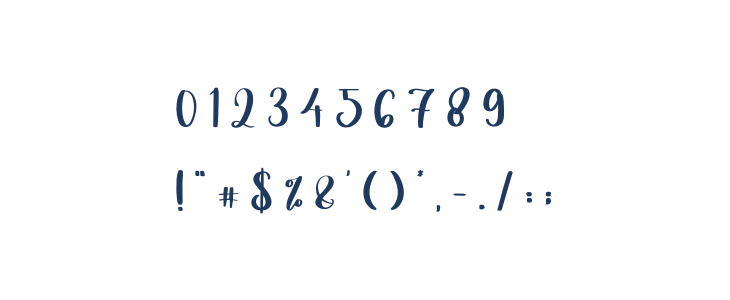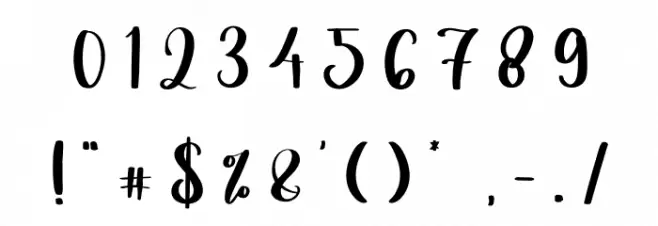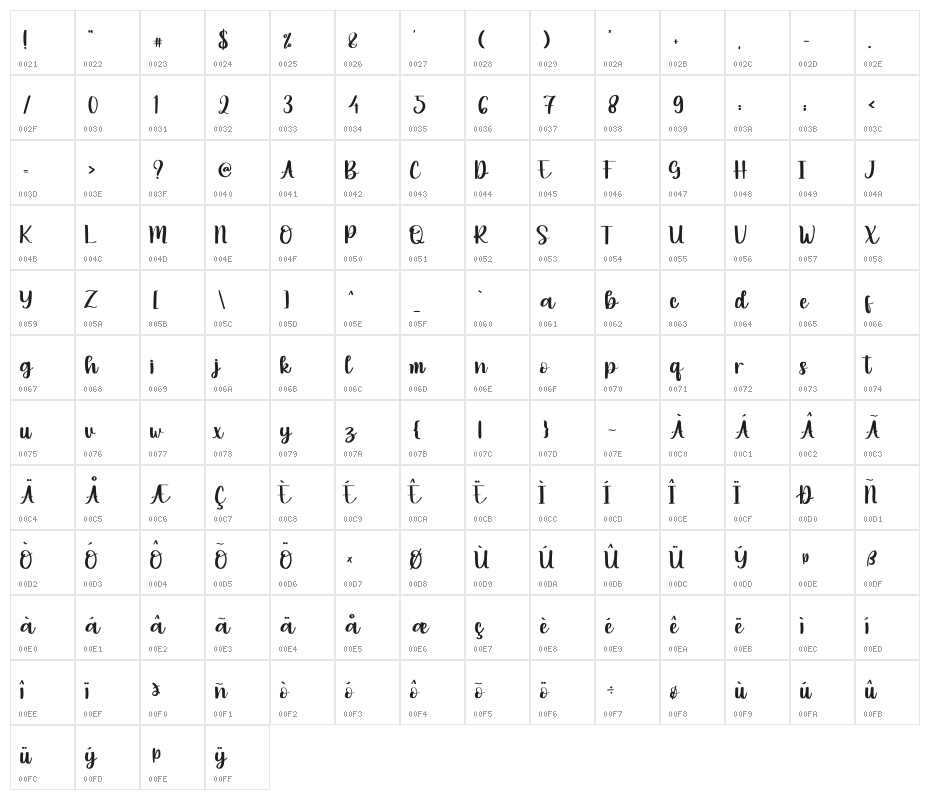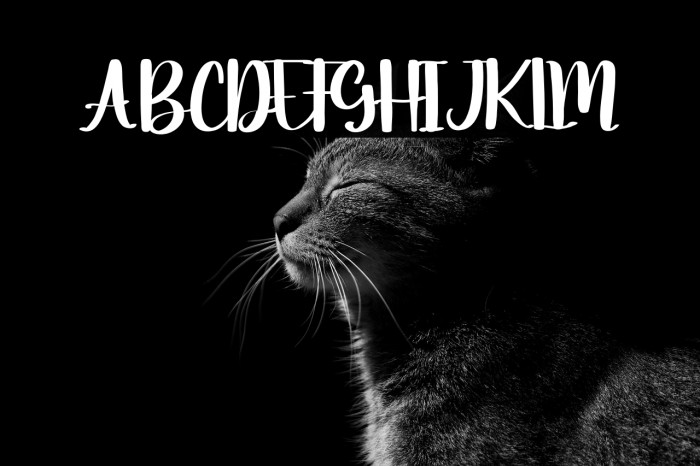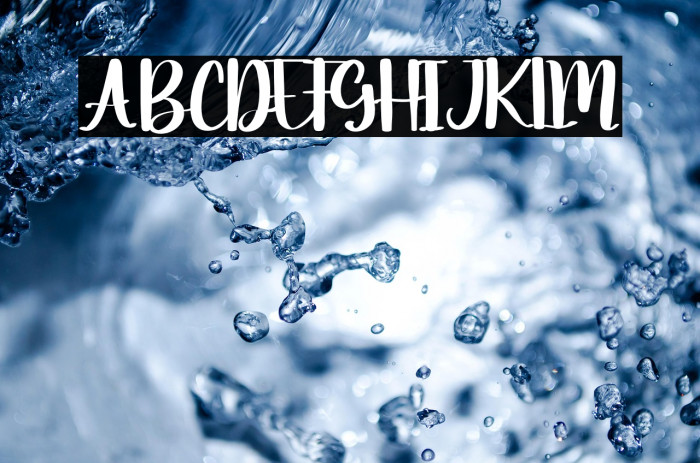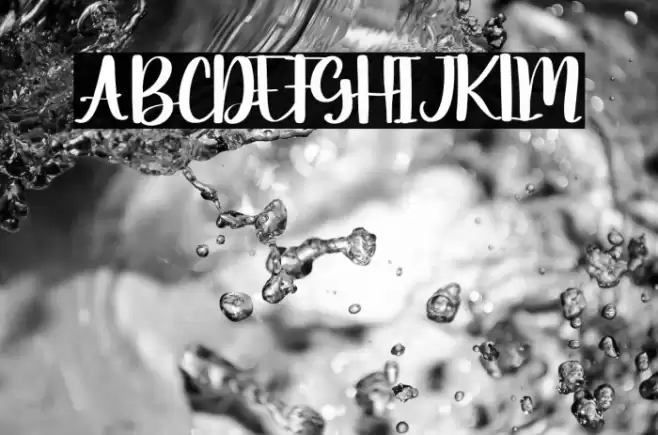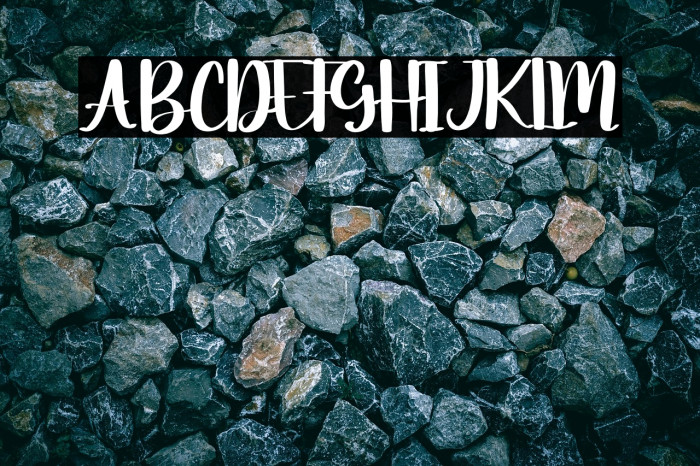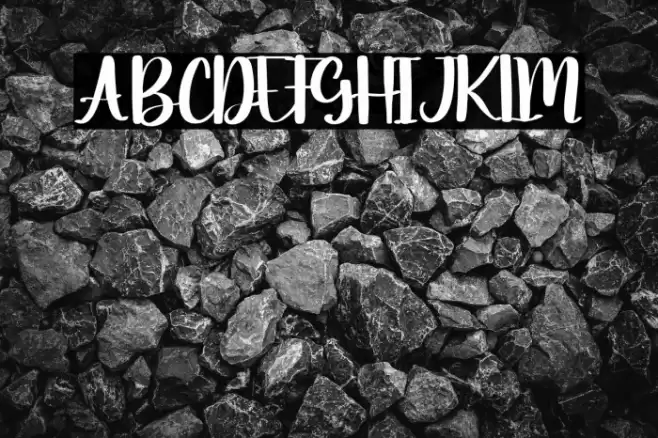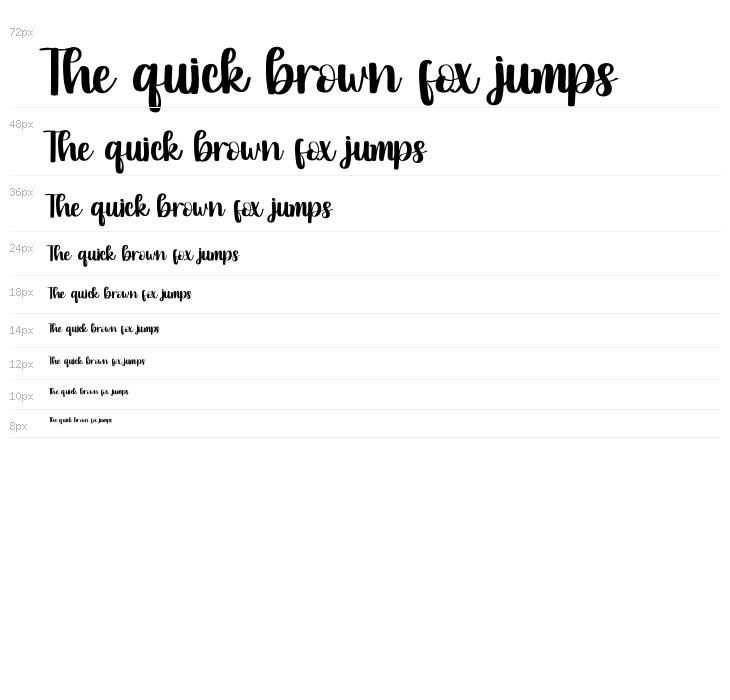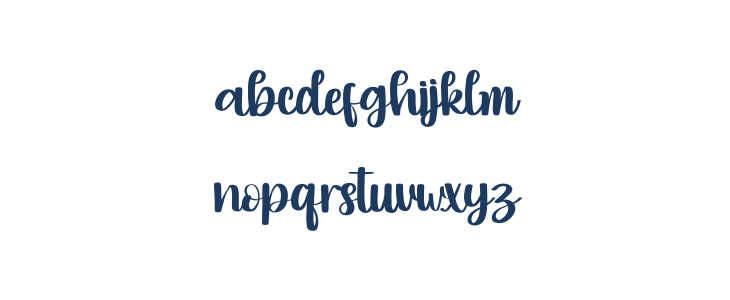
Moonday Font
Moonday Description
This font features a bold and expressive script style with a playful and artistic flair. The characters are crafted with a smooth, flowing motion, giving it a handwritten appearance. The uppercase letters are slightly larger and more pronounced, while the lowercase letters maintain a consistent flow. The numbers and special characters are designed to match the overall aesthetic, with a whimsical touch. The strokes are thick and consistent, providing a strong visual impact. This font is ideal for projects that require a personal and creative touch, such as invitations, greeting cards, and branding materials.
| Proposed Projects | Ideal for invitations, greeting cards, branding, and creative projects. |